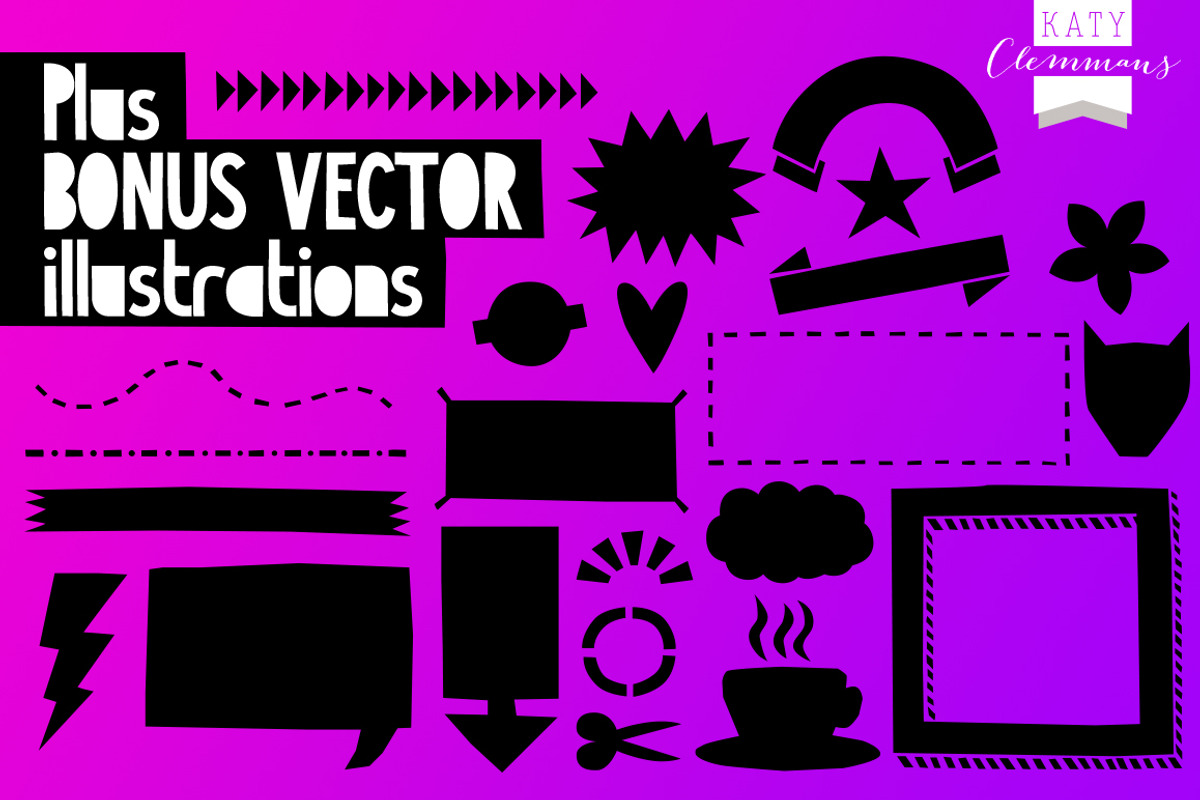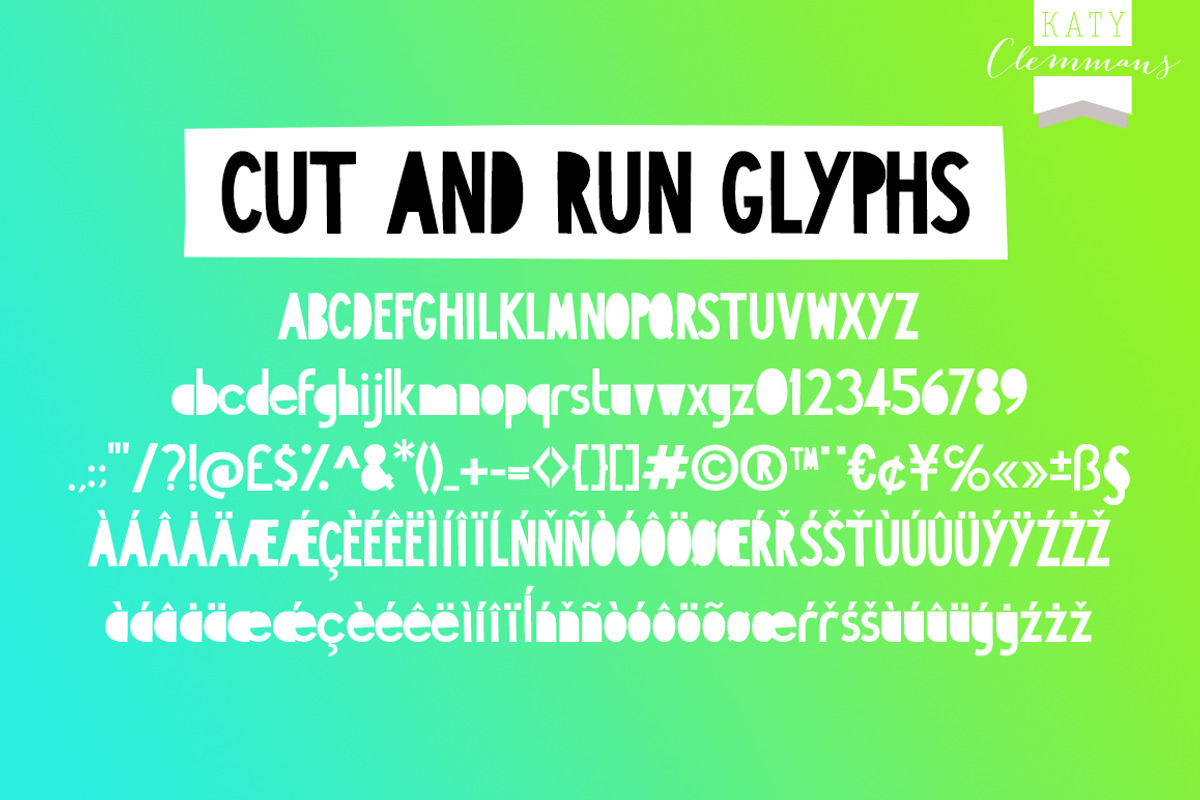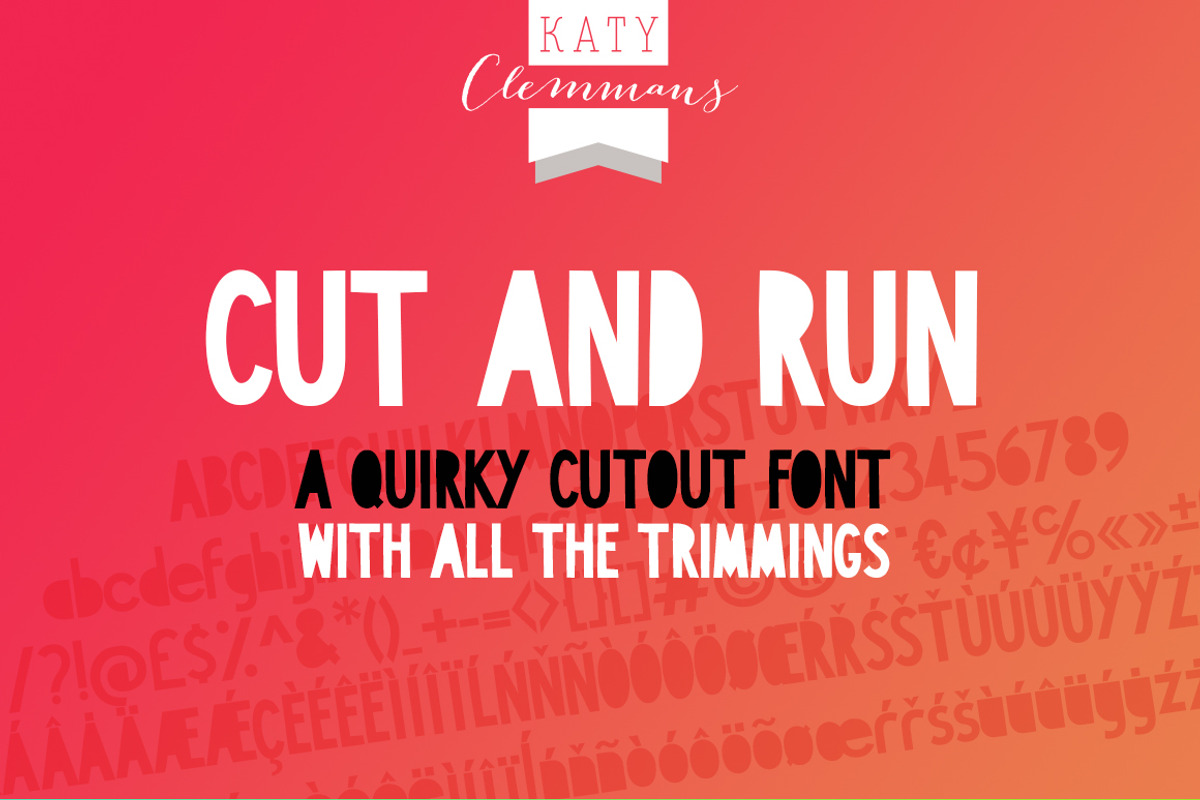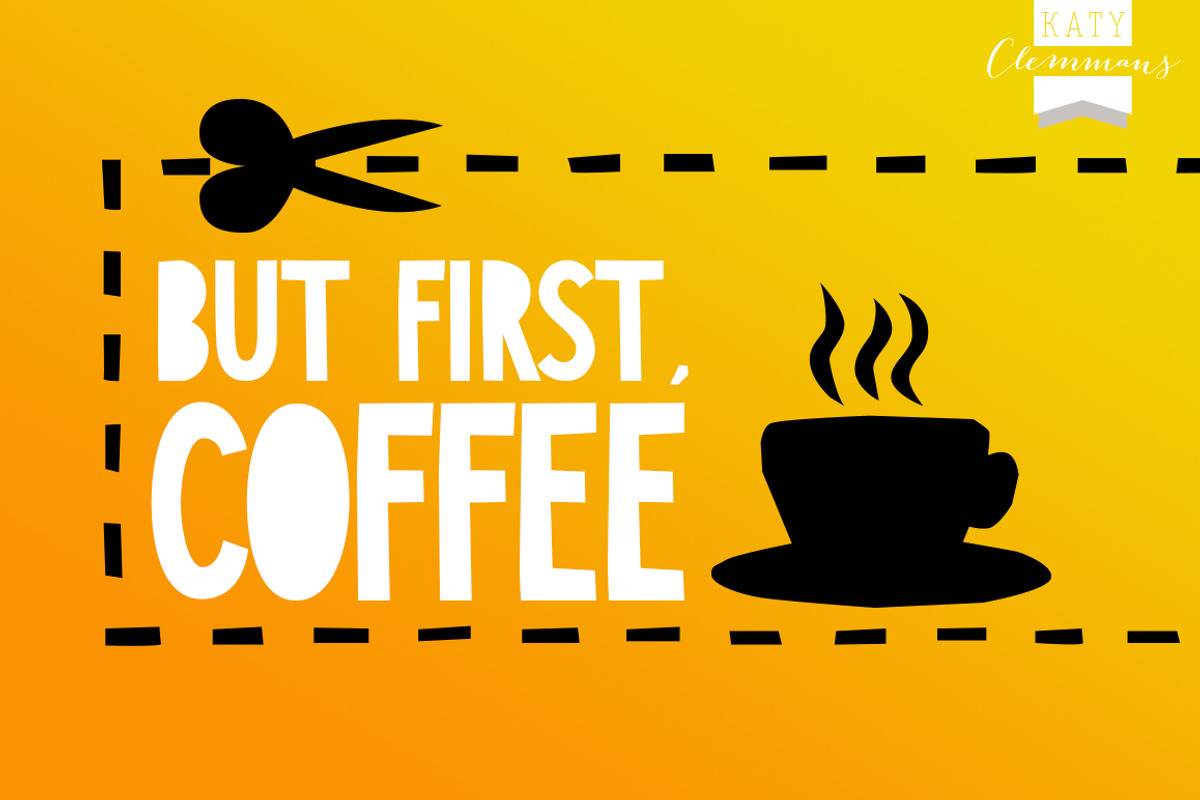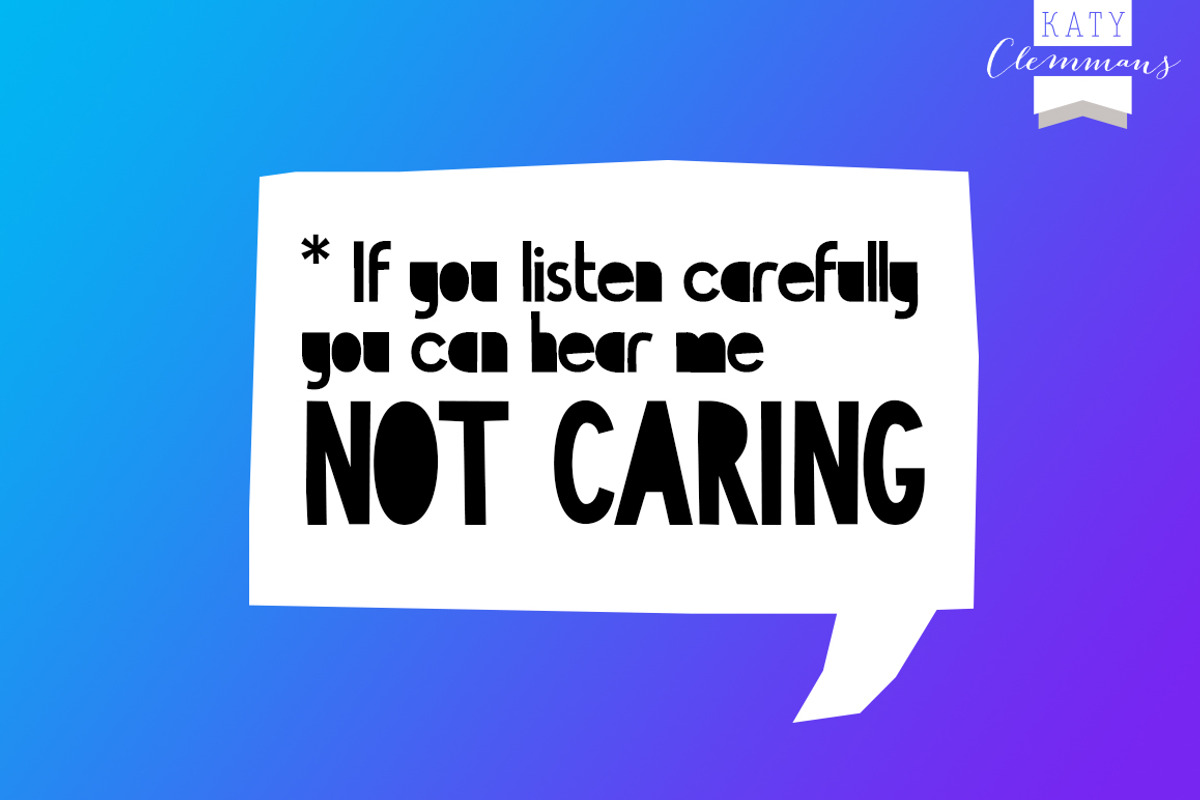
CUT AND RUN font
CUT AND RUN font by Katy Clemmans is a font selected for branding, posters, packaging, typography.
Why CUT AND RUN font is worth a look
CUT AND RUN font by Katy Clemmans fits naturally into Branding, posters, packaging, typography.